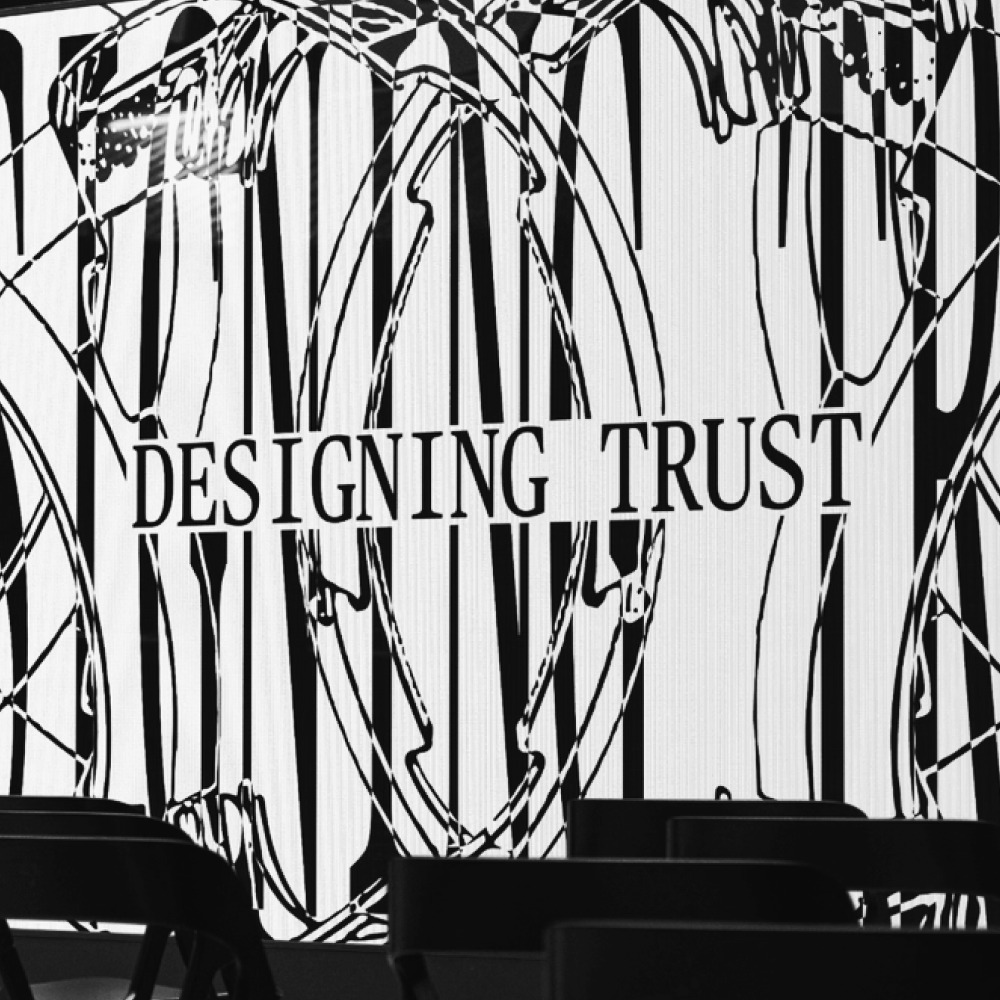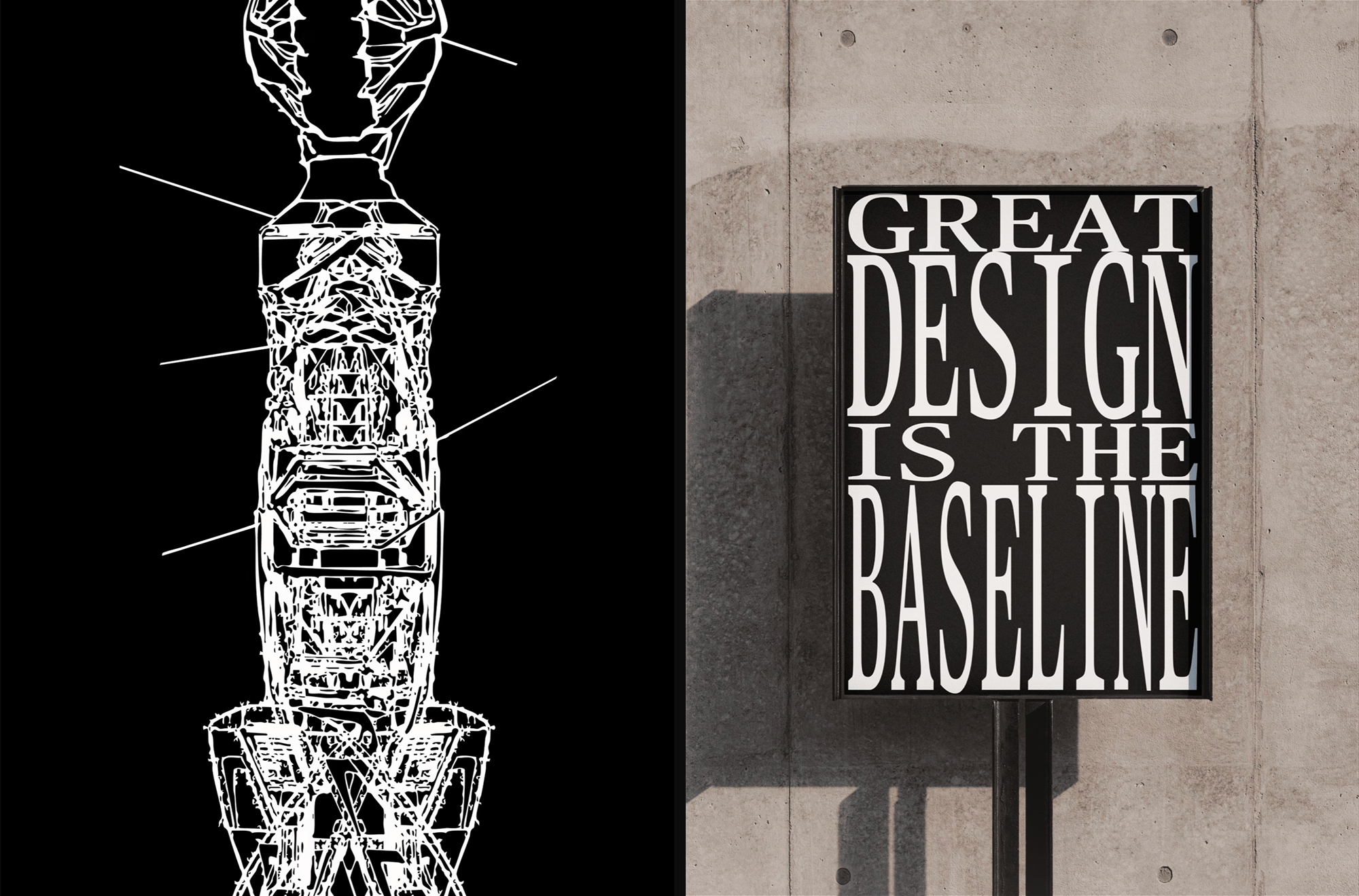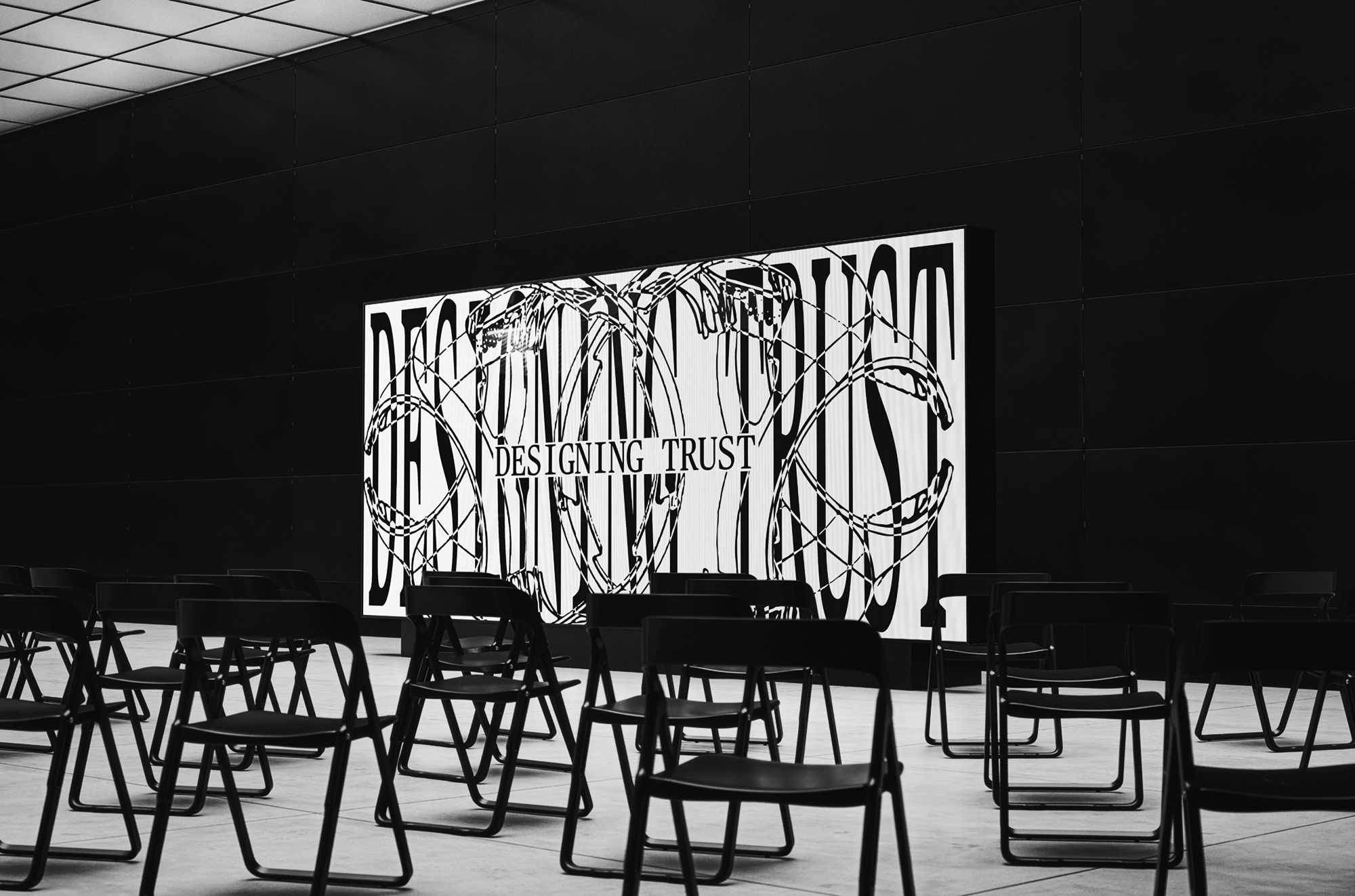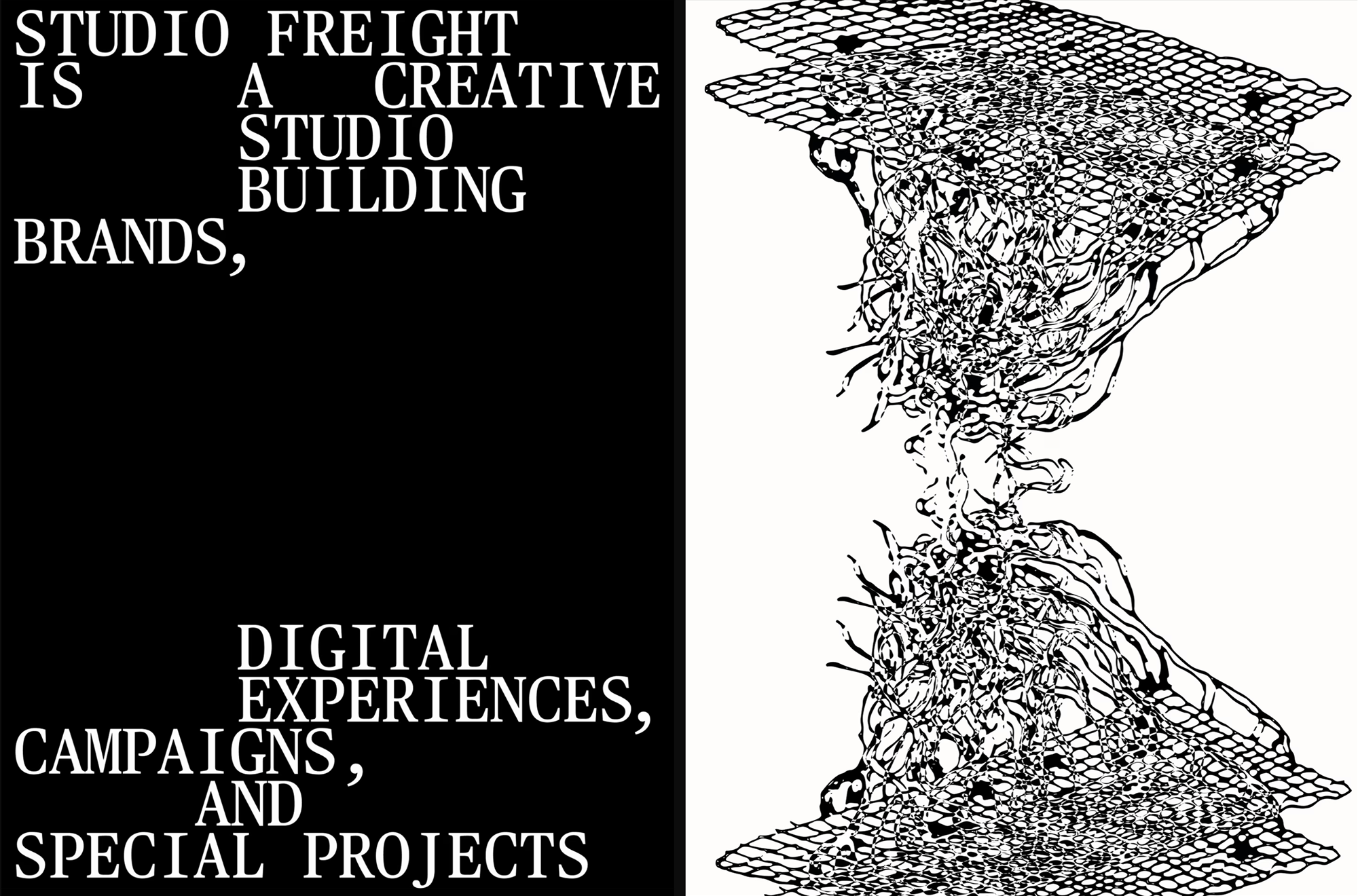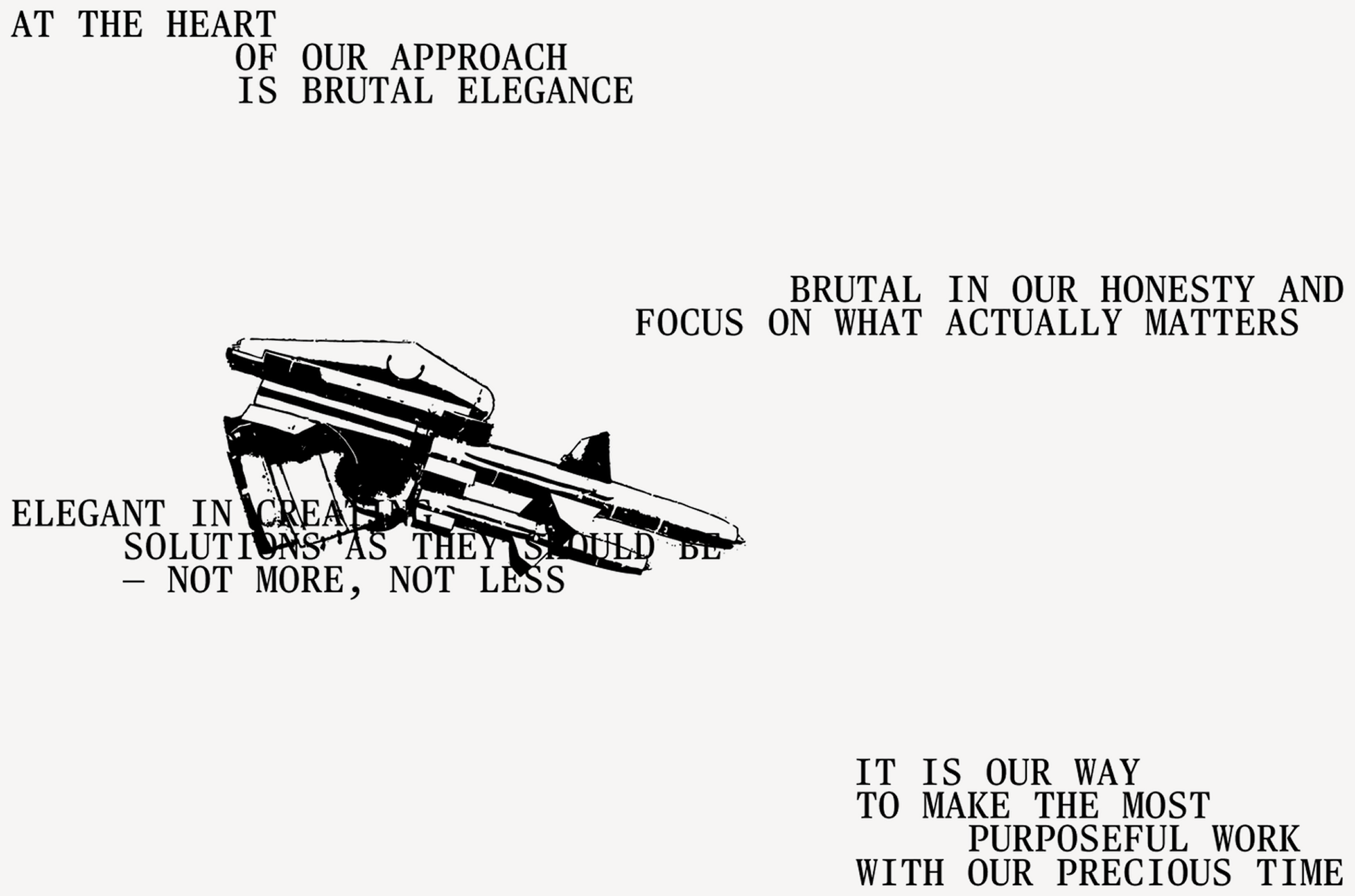
Freight — a studio that delivers ad campaigns and special projects to promote brands — has updated its own brand identity. JJannon by Optimo Type Foundry is used for body text and subheadings, while headlines and more elaborate typographic compositions are set in Publico Text Mono by Commercial Type.
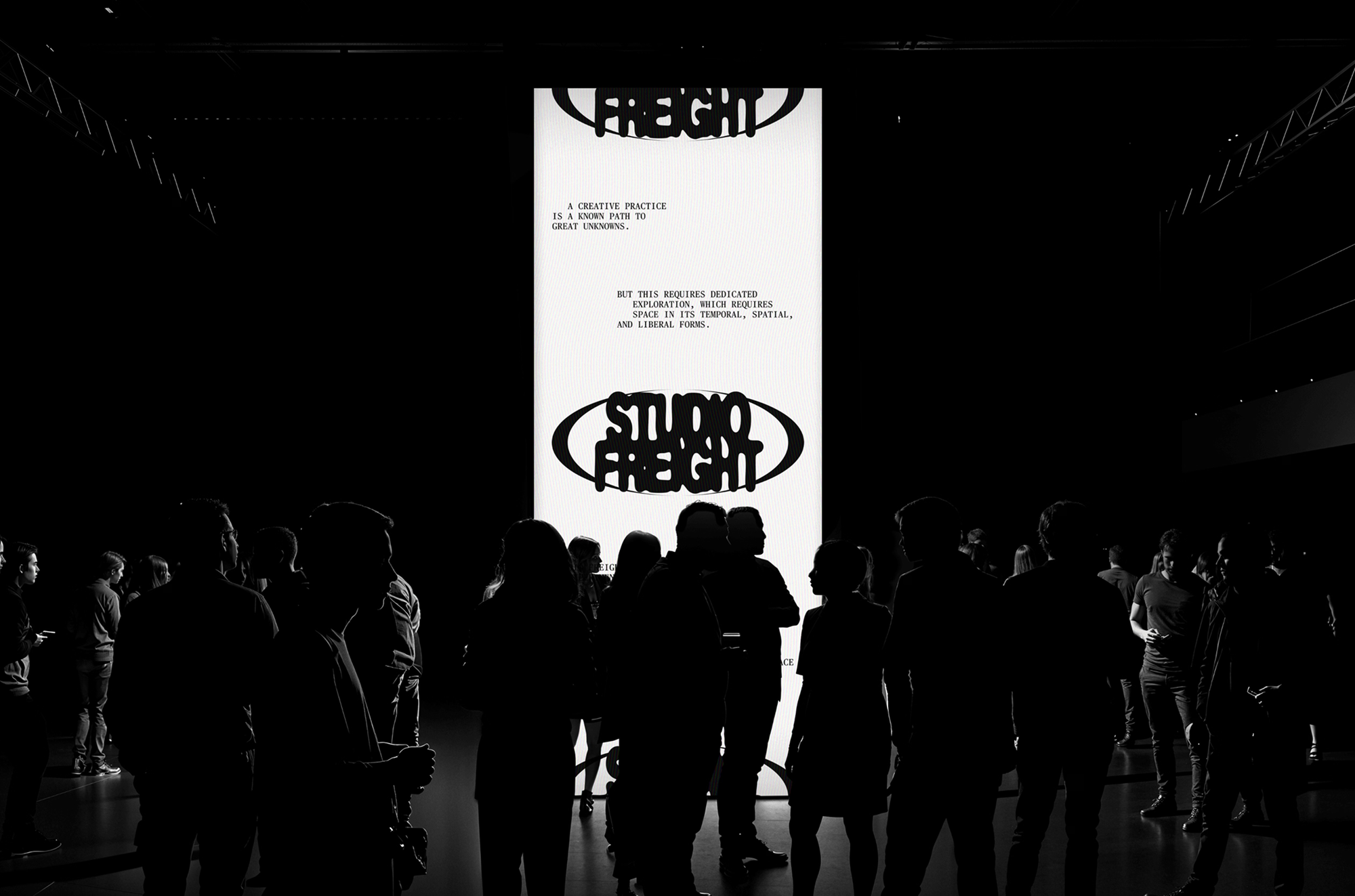
Originally one of the candidates considered to become a display typeface for The Guardian, Publico ended up making its debut in a Portuguese daily newspaper. Since it basically shares the skeleton with Guardian, typefaces from these two collections work great when applied next to each other.